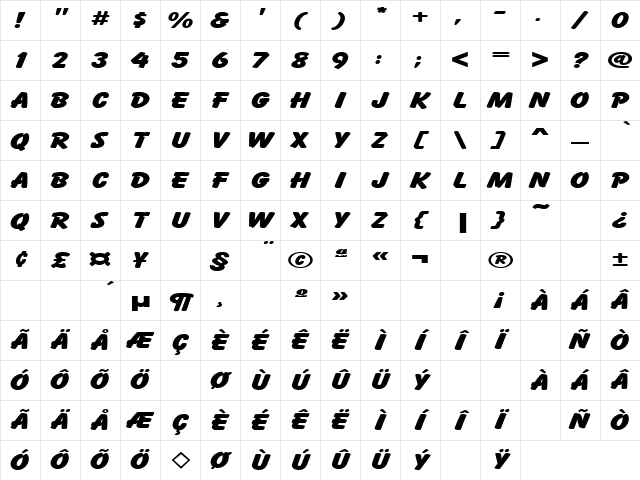
Complete Dragon Tears 1 Regular glyph index. Displaying only characters natively supported by Dragon Tears 1 Regular font.
Dragon Tears 1 is a composed and adaptable typeface that performs quietly and consistently across a wide range of design contexts.